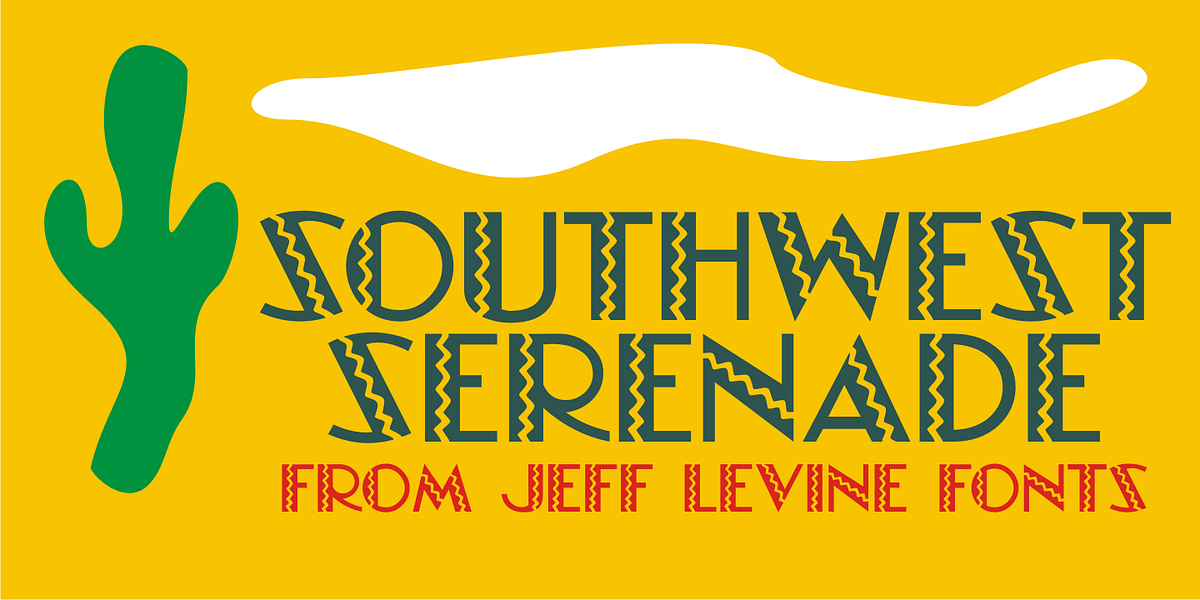
Southwest Serenade JNL
The 1940s-era hand-lettered title on vintage sheet music for the song hit “Donkey Serenade” had an interpretation of the classic typeface “Broadway” used in a Mexican/Southwest motif with wavy lines cutting through the letters.
Adapting <a href="/fonts/jeff-levine/playwright-jnl">Playwright JNL</a> (itself, a hand-lettered interpretation of “Broadway”) to this style, the festive design is now a digital typeface called Southwest Serenade JNL.